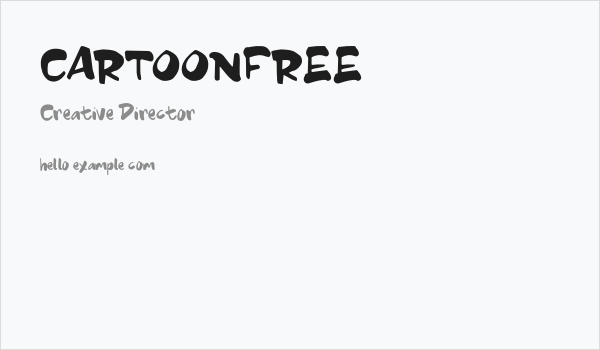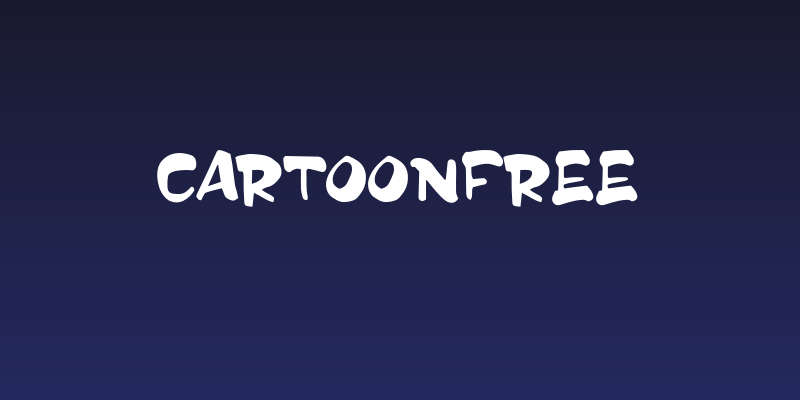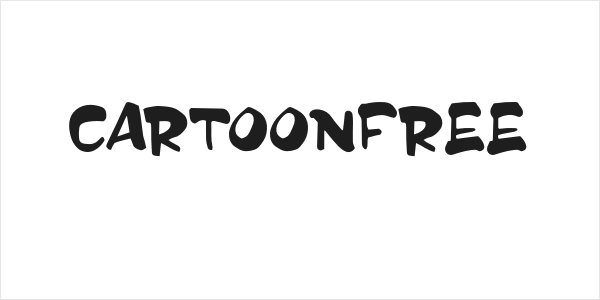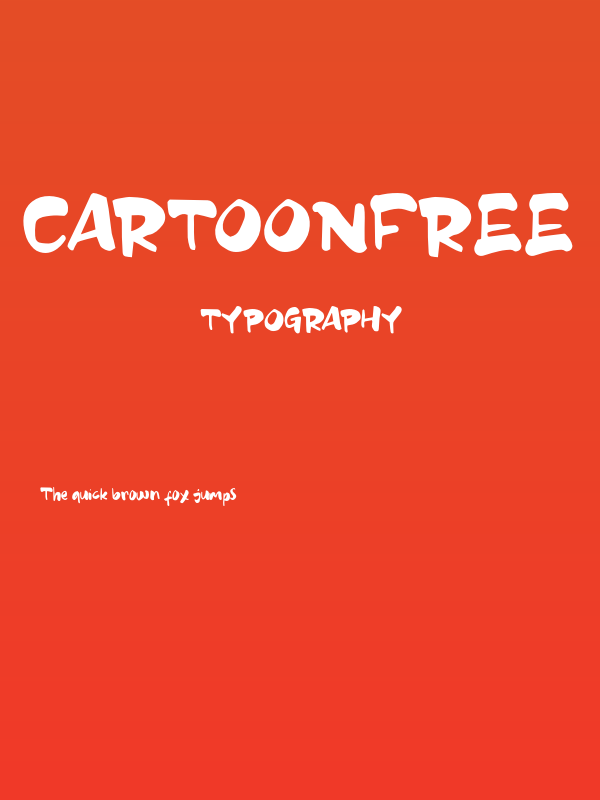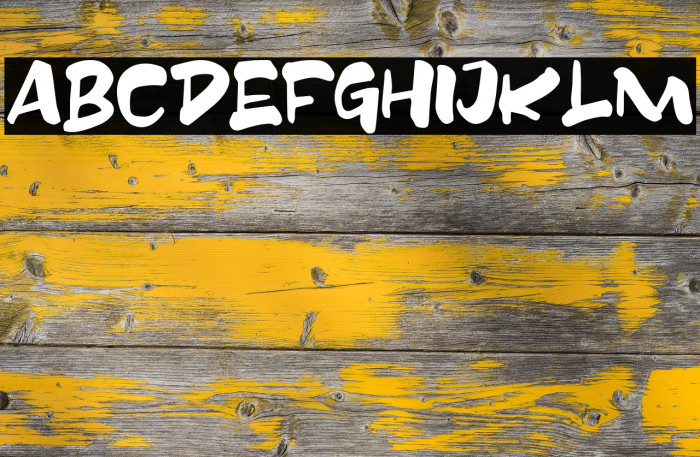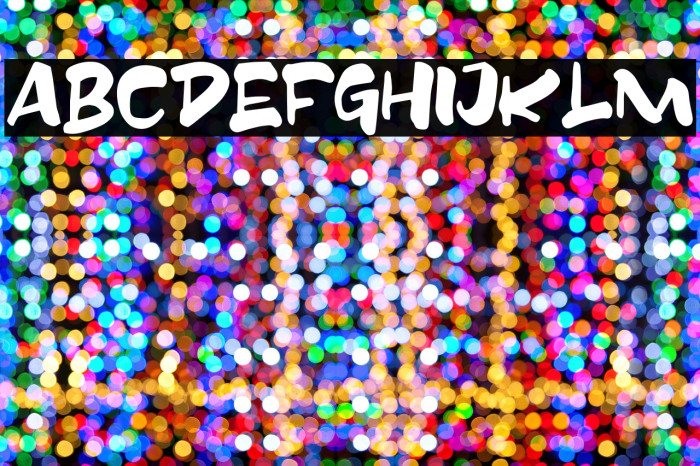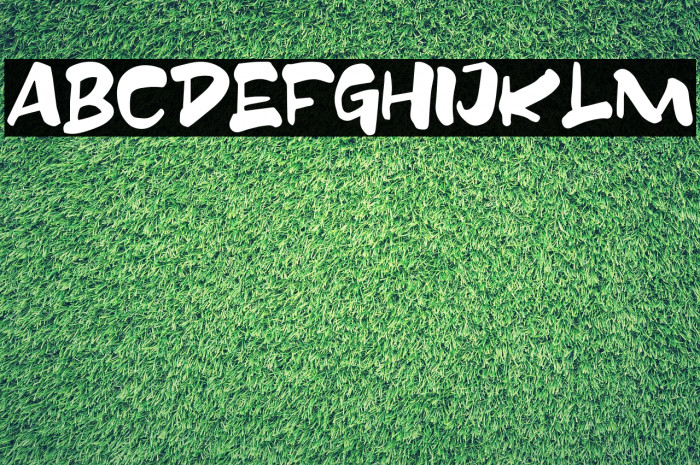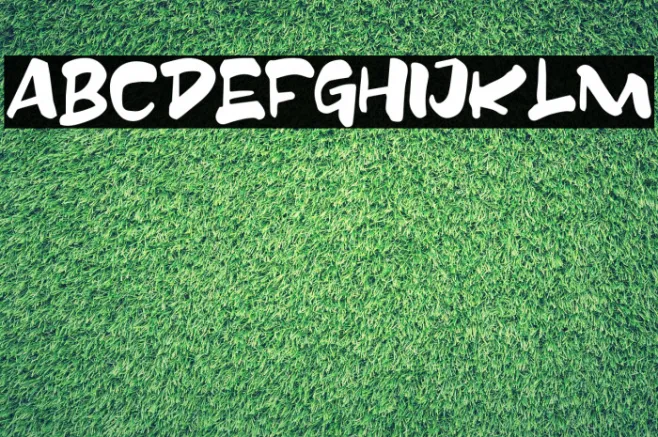
CARTOONFREE Font
CARTOONFREE Description
This playful and bold font exudes a lively and energetic vibe, perfect for capturing attention. The characters are thick and rounded, with a hand-drawn appearance that adds a whimsical touch. The uppercase and lowercase letters maintain a consistent style, with slightly exaggerated curves and strokes that give it a cartoonish feel. The numbers and special characters follow the same playful design, making the font versatile for various creative projects. Its informal and friendly look makes it ideal for children's books, comic strips, or any design that requires a fun and approachable aesthetic.
| Overall Style | Playful, Whimsical, Cartoonish |
| Proposed Projects | Ideal for children's books, comic strips, playful branding, and creative posters. |